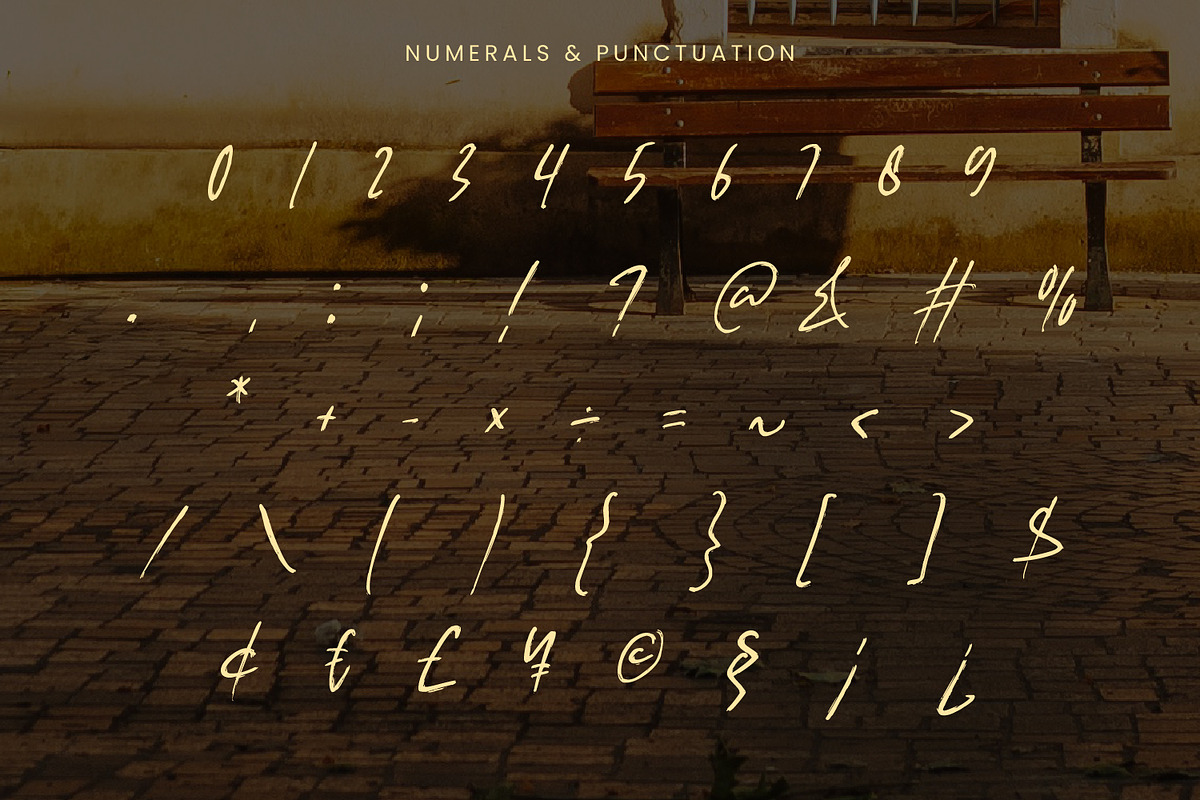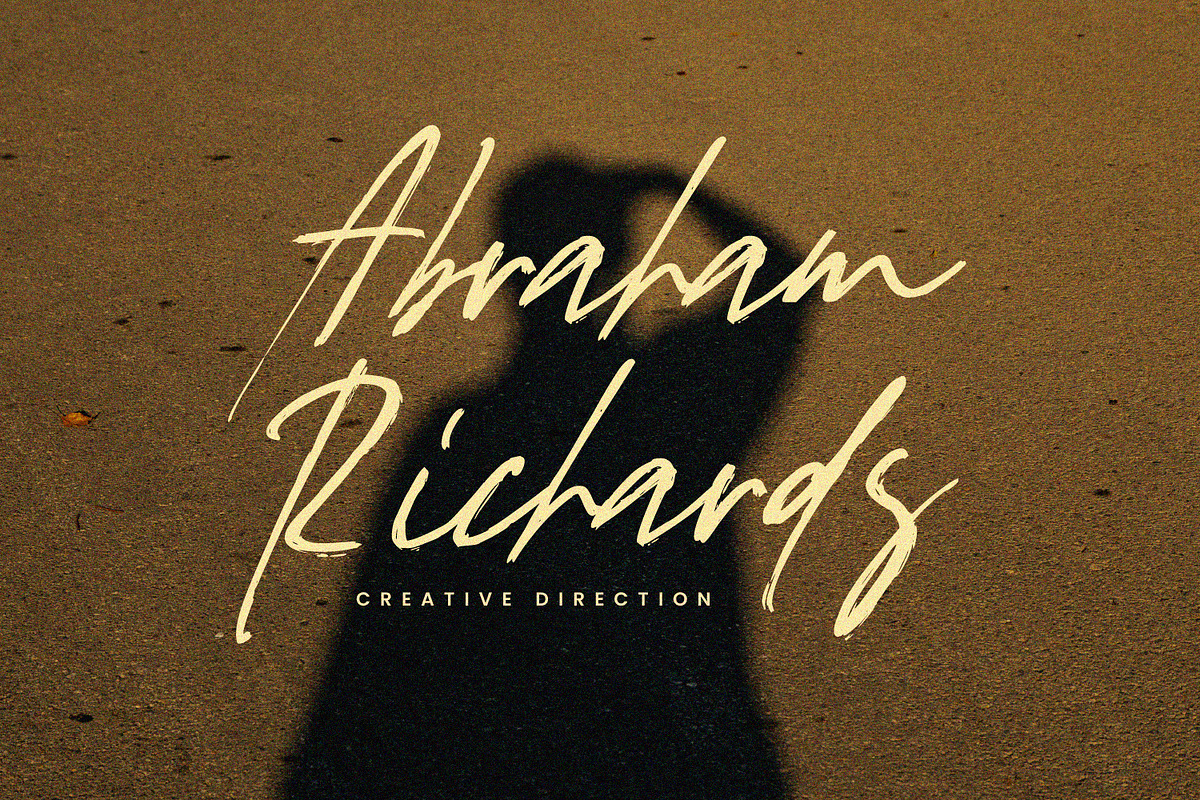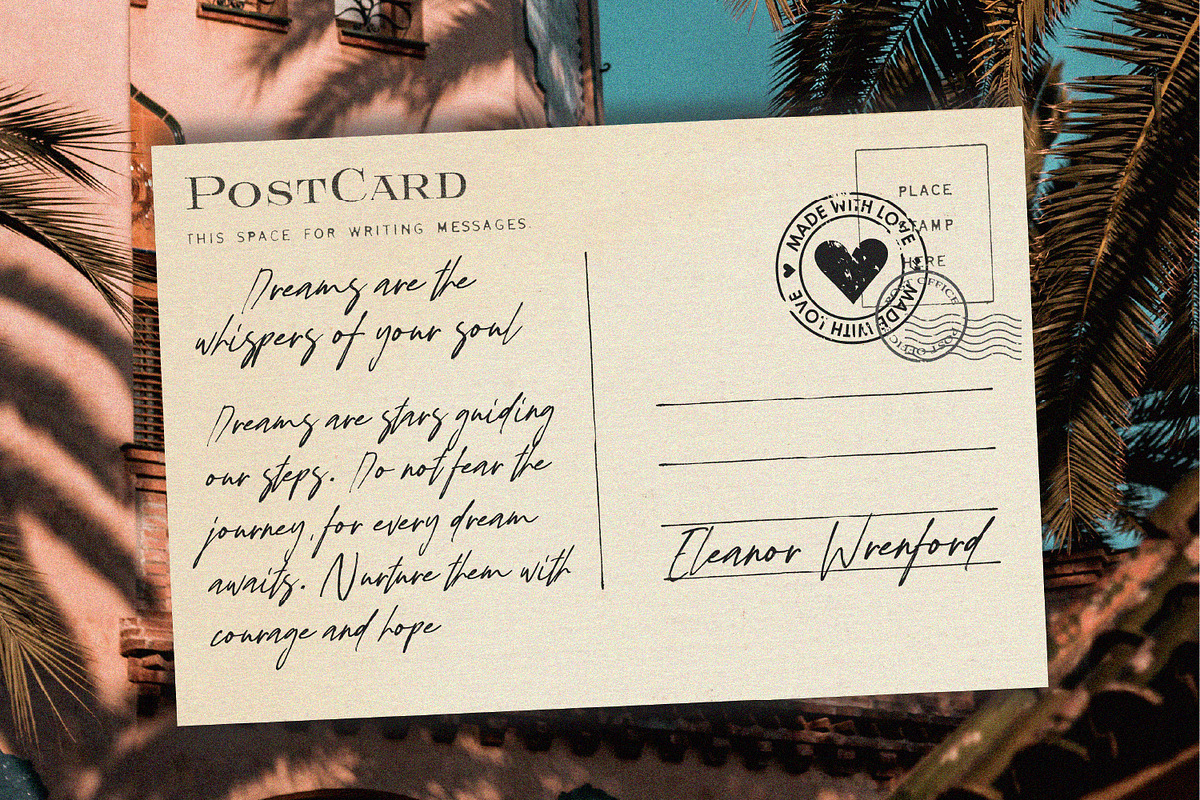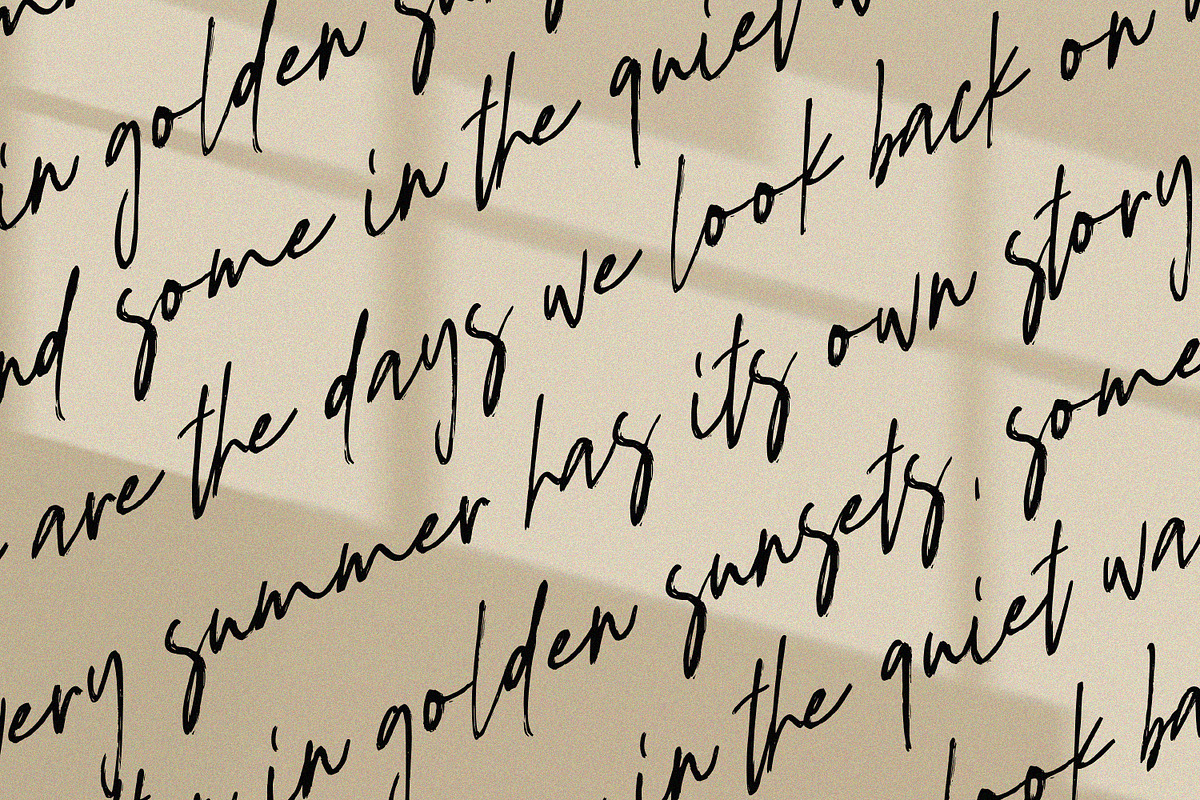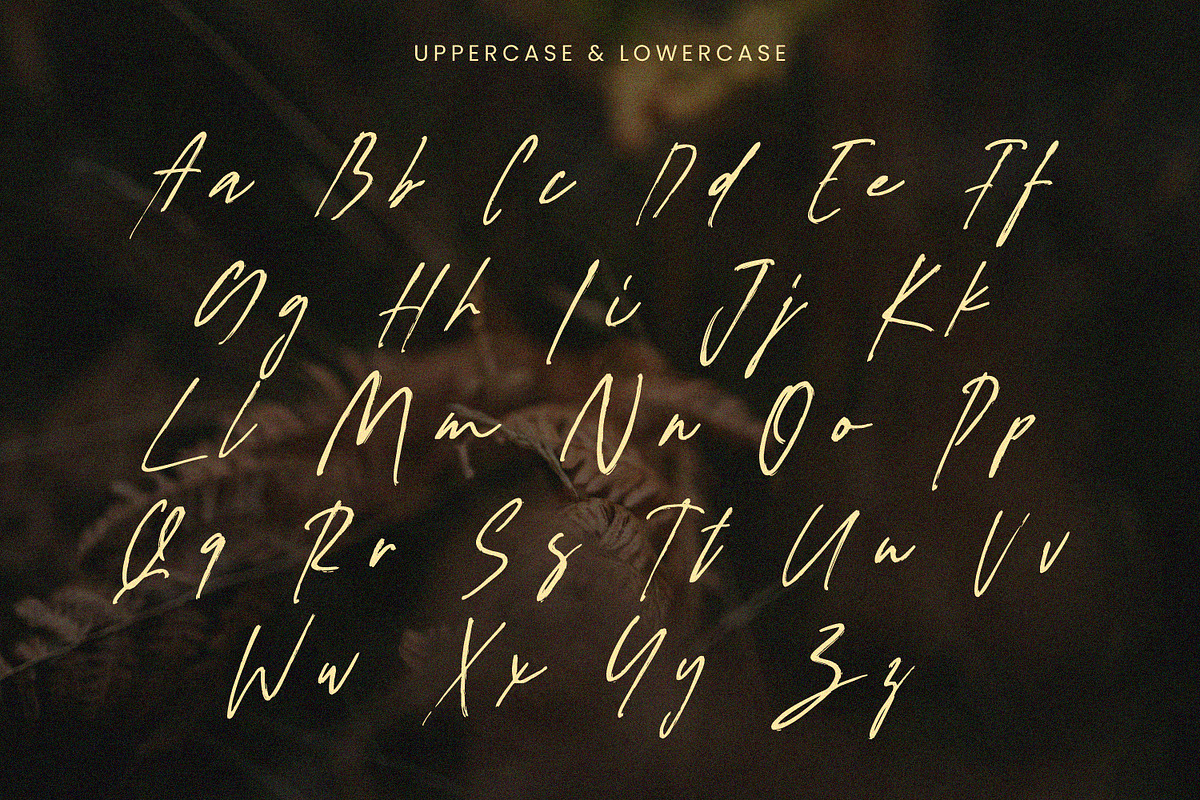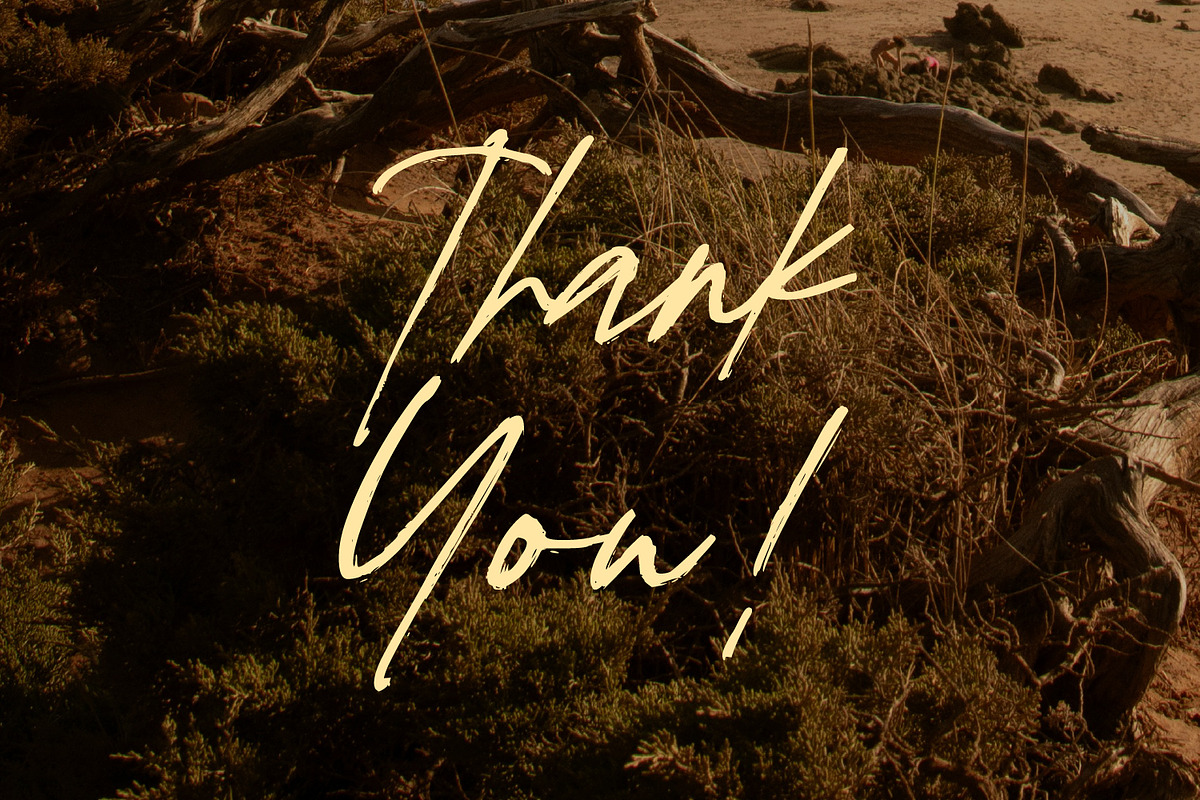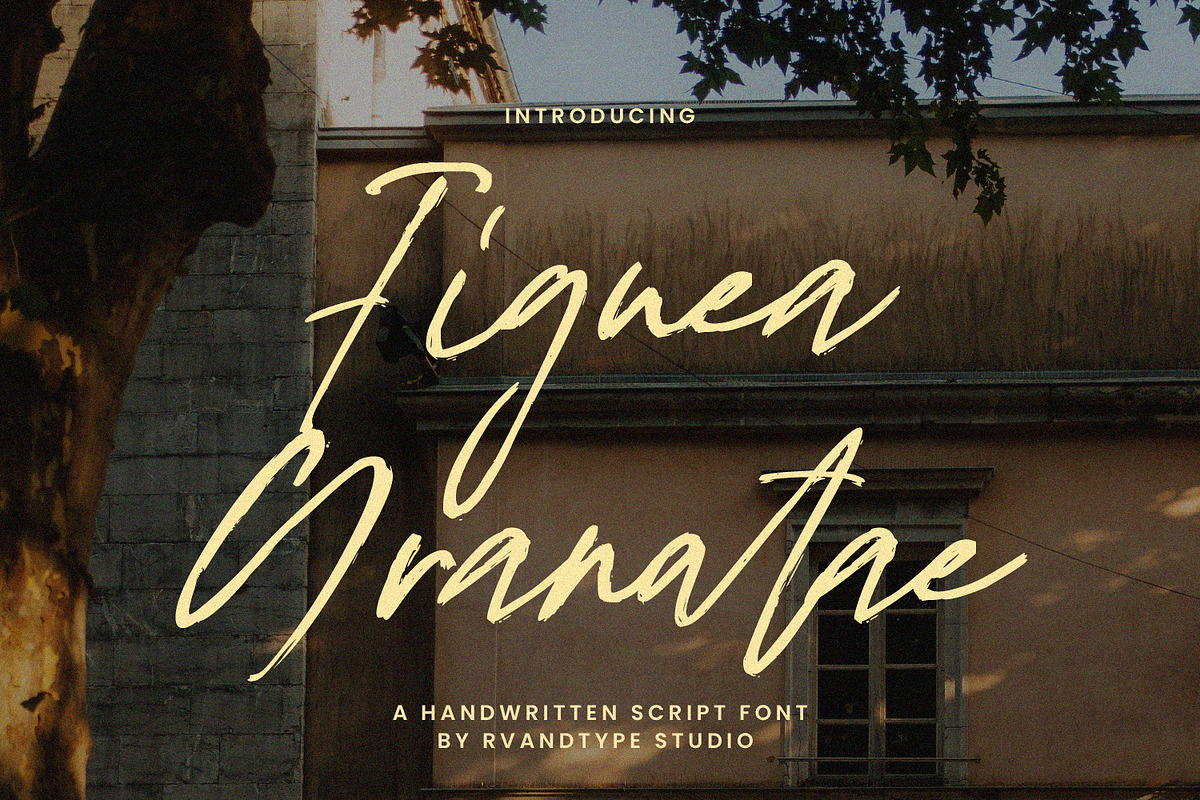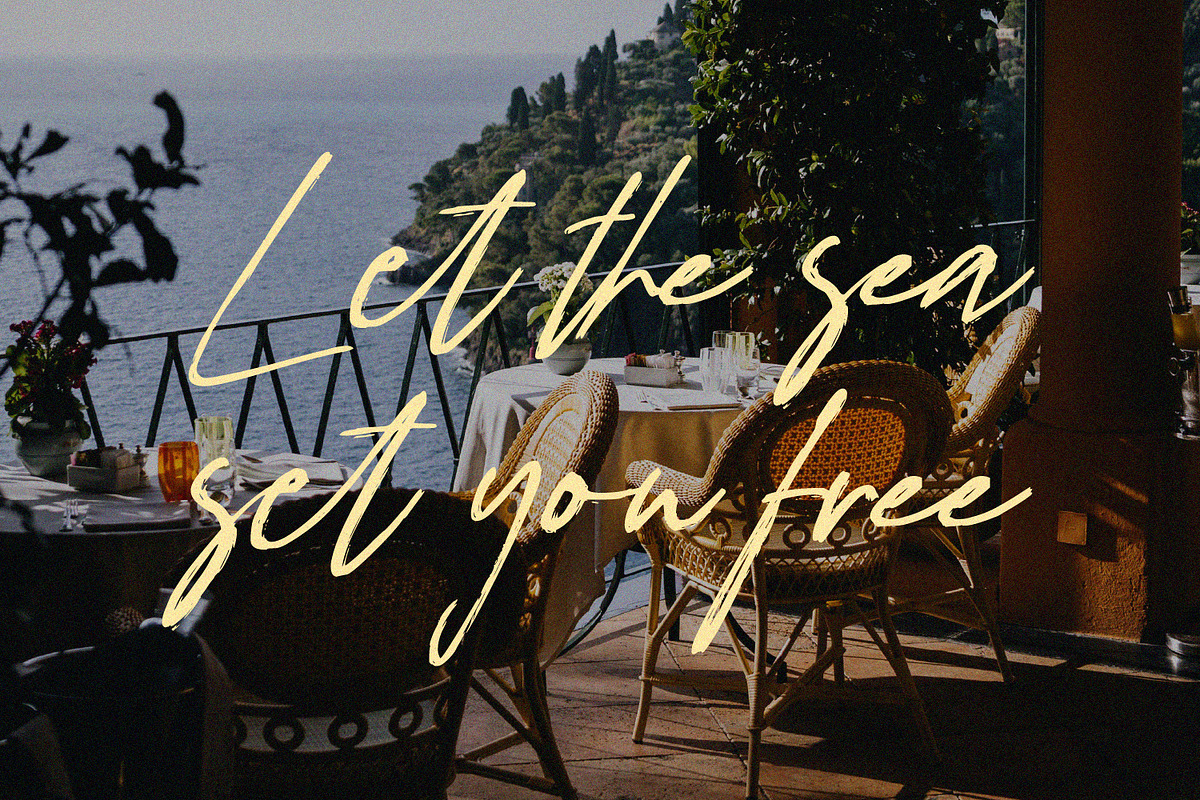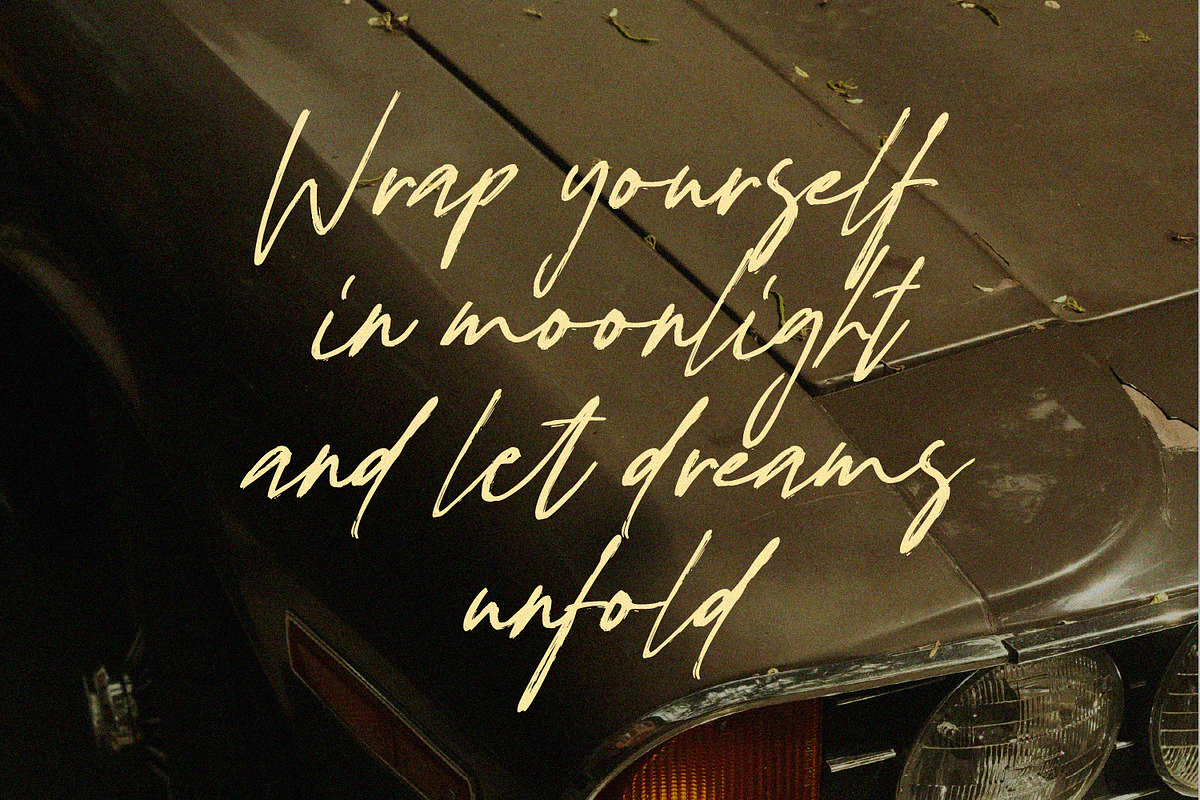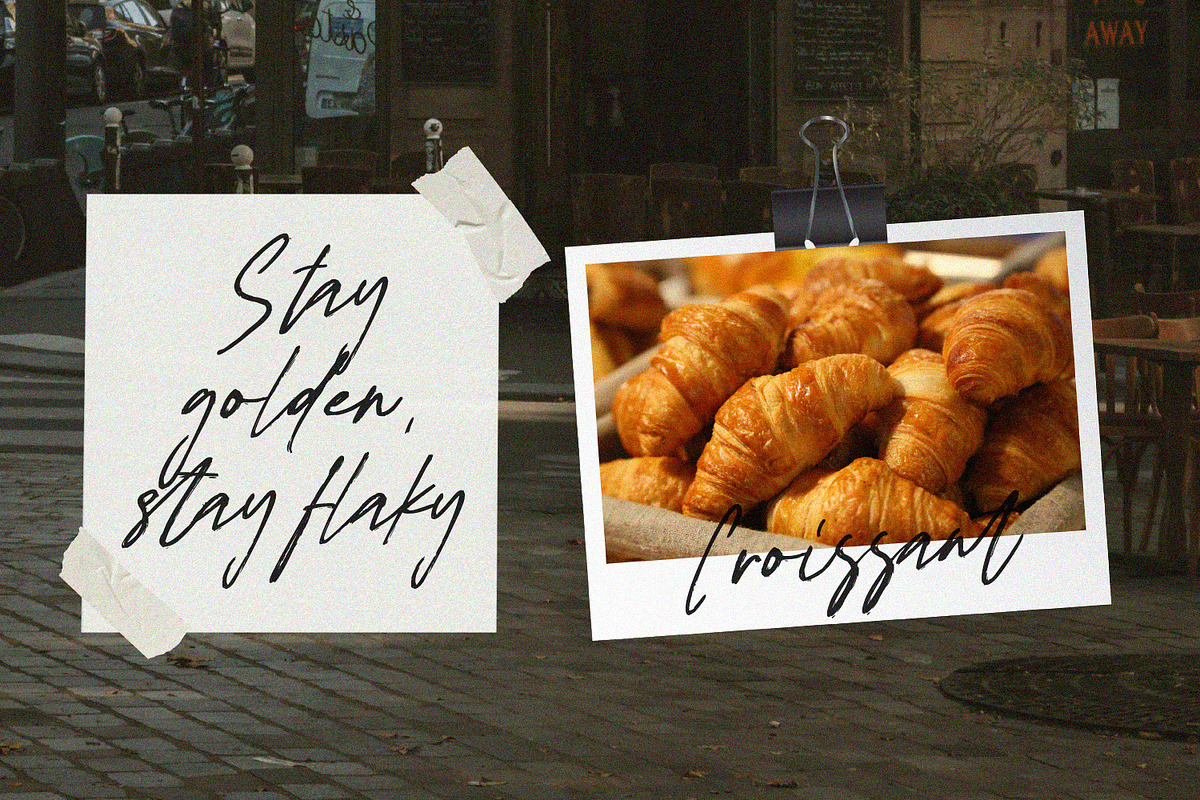
Figuea Granatae - Handwritten Script
Figuea Granatae is a handwritten script font that combines the charm of natural penmanship with a touch of modern elegance. Designed with expressive strokes and flowing curves, this font brings a warm, personal, and artistic feeling to any project. Each letter carries the subtle imperfections of real handwriting, making your text look authentic and alive.
The font’s sleek yet organic style makes it highly versatile — whether you’re creating logos, branding materials, packaging, wedding invitations, greeting cards, posters, or social media content. Its casual yet refined appearance adapts beautifully to both contemporary and timeless design concepts.
One of Figuea Granatae’s strongest features is the balance between uppercase and lowercase letters, offering seamless readability while maintaining a handcrafted look. The strokes are slightly textured, giving a sense of freedom and spontaneity, as if they were written under the golden light of a Mediterranean summer afternoon.
This font embodies rustic charm, coastal elegance, and dreamy aesthetics, perfect for designers and creatives who want their work to radiate both authenticity and sophistication.
Complete uppercase & lowercase letters
Natural handwritten script with smooth brush texture
Perfect for headlines, branding, and editorial design
Works beautifully for quotes, wedding stationery, and lifestyle projects
A unique blend of casual handwriting and elegant flow
If you’re looking for a script font that can capture the essence of freedom, creativity, and timeless beauty, then Figuea Granatae is the perfect addition to your design toolkit.